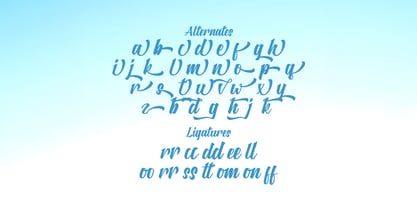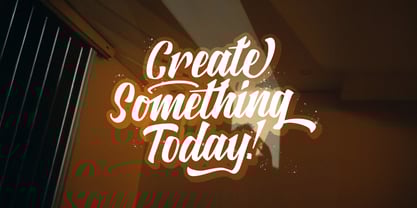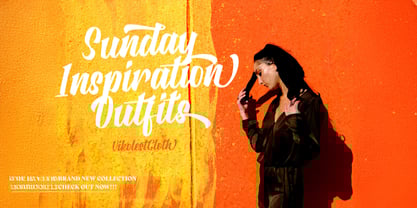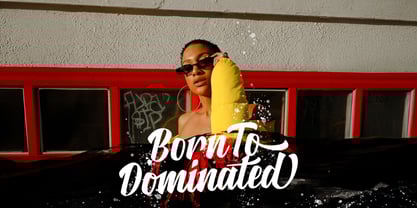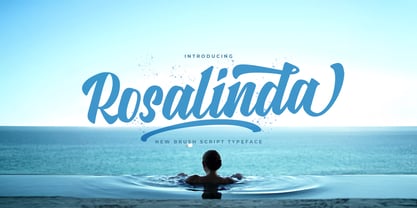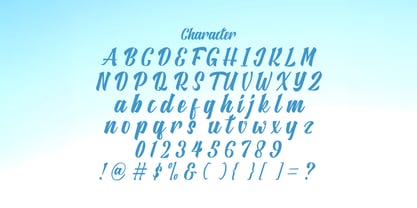
The Rosalinda Font Family was designed by Virgiawan Listanto and published by Stringlabs Creative Studio. Rosalinda contains 1 styles. More about this family
Rosalinda is a bold script font that combines confident curves with expressive strokes. Designed to be both stylish and powerful, Rosalinda delivers a modern handwritten look that’s full of personality perfect for grabbing attention while keeping things effortlessly chic. It’s the perfect blend of boldness and beauty in one striking script.
Designers: Virgiawan Listanto
Foundry: Stringlabs Creative Studio
Rosalinda